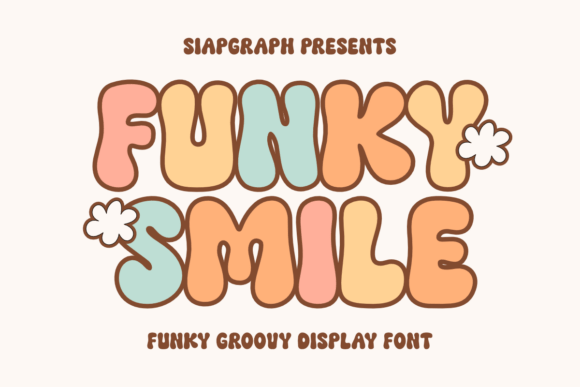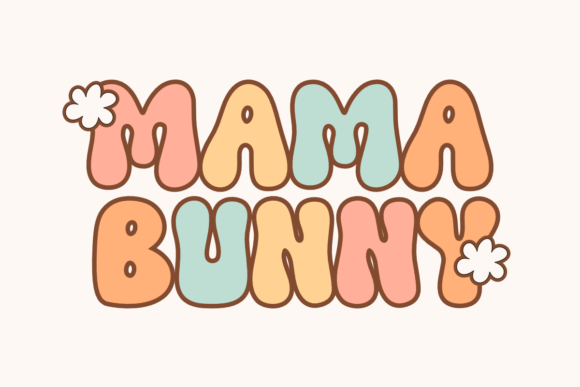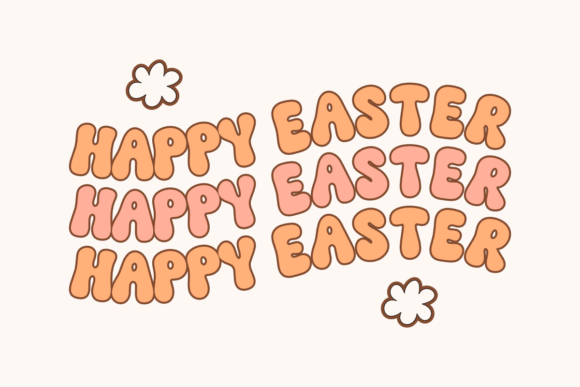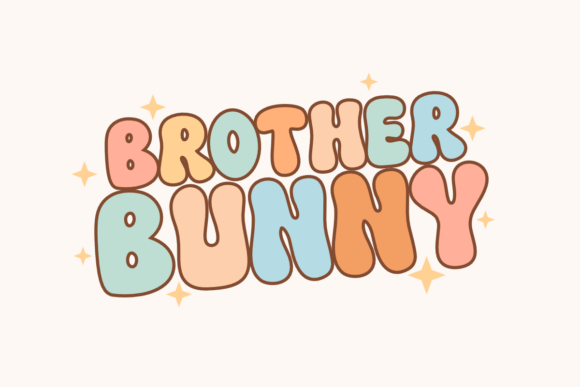
Funky Smile Font
About the Funky Smile Font
Welcome to the world of Funky Smile Font, a typeface that will inspire your next great project. Funky Smile is a playful and groovy display font that radiates fun, joy, and retro vibes. With its bubbly, rounded letters and nostalgic 70s-inspired style, this typeface is perfect for branding, posters, social media graphics, kids’ designs, and creative projects. Its thick, outlined shapes and funky aesthetic make every design pop with happiness and energy.
Funky Smile excels in headlines, short slogans, and eye-catching logos where its playful energy shines. It’s ideal for projects targeting younger audiences or brands with a retro, fun-loving aesthetic, such as ice cream parlors, toy stores, or children’s books. Avoid using it for large amounts of body text; its playful forms become less legible in extended use. Similarly, it may not be suitable for user interfaces requiring high readability.
Pairing Funky Smile with a clean sans-serif like Open Sans for body copy creates a balanced contrast, allowing the display font’s personality to take center stage without overwhelming the reader. For a more vintage feel, consider pairing it with a serif like Playfair Display, offering a touch of elegance that complements Funky Smile’s retro charm.
The font’s overall personality is undeniably bold and friendly, conveying a sense of carefree optimism and nostalgia. Its retro styling makes it a powerful choice for evoking happy memories and a sense of lighthearted fun.
Funky Smile Font Usage Examples
Funky Smile Font Example